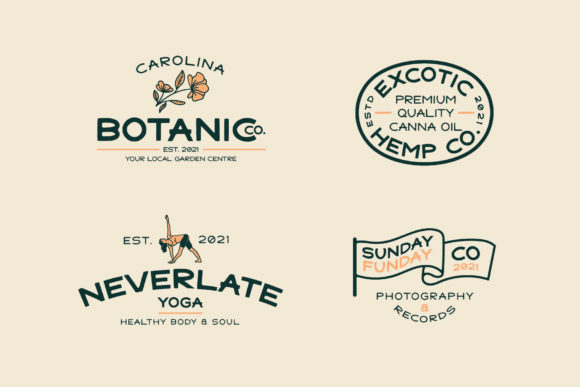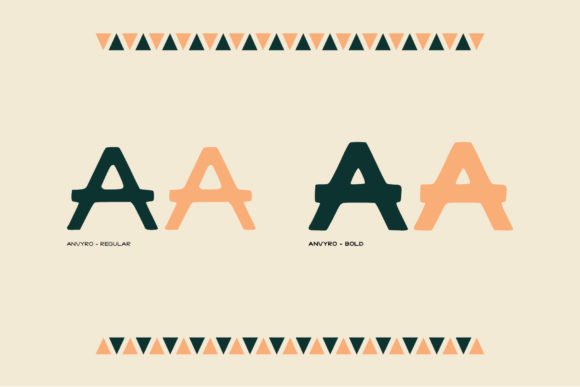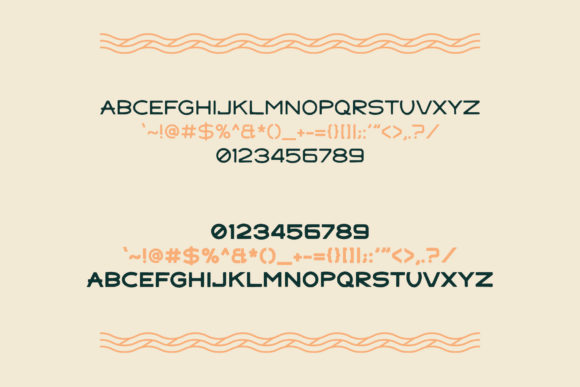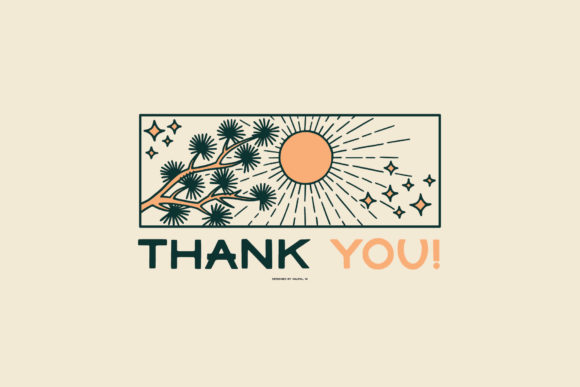
Introducing Anvyro Font: A Cool, Modern, and Vintage Styled Display Font
Are you tired of using the same old fonts for your designs? Do you want to add a unique touch to your web designs, business cards, or other creative projects? Look no further than Anvyro Font, a cool, modern, and vintage styled display font that’s perfect for designers and crafters alike.
What is Anvyro Font?
Anvyro Font is a stylish and versatile display font that’s ideal for creating eye-catching designs. Its unique blend of modern and vintage elements makes it perfect for a wide range of projects, from web designs and business cards to posters, flyers, and more.
Key Features of Anvyro Font
- Cool and Modern Design: Anvyro Font features a sleek and contemporary design that’s sure to turn heads.
- Vintage Styled: With its subtle nods to classic typography, Anvyro Font adds a touch of nostalgia and sophistication to any design.
- Highly Versatile: Whether you’re designing for web, print, or other mediums, Anvyro Font is the perfect choice for adding a unique touch to your projects.
- Easily Readable: Despite its stylish design, Anvyro Font remains highly readable, even at smaller sizes.
Why Choose Anvyro Font?
- Stand Out from the Crowd: With Anvyro Font, you can create designs that truly stand out from the crowd and grab attention.
- Perfect for Branding: Anvyro Font’s unique style makes it perfect for branding and identity projects, helping you to establish a strong visual presence.
Tips and Tricks for Getting the Most out of Anvyro Font
- Experiment with Different Sizes: Anvyro Font looks great at a range of sizes, from small and delicate to large and bold.